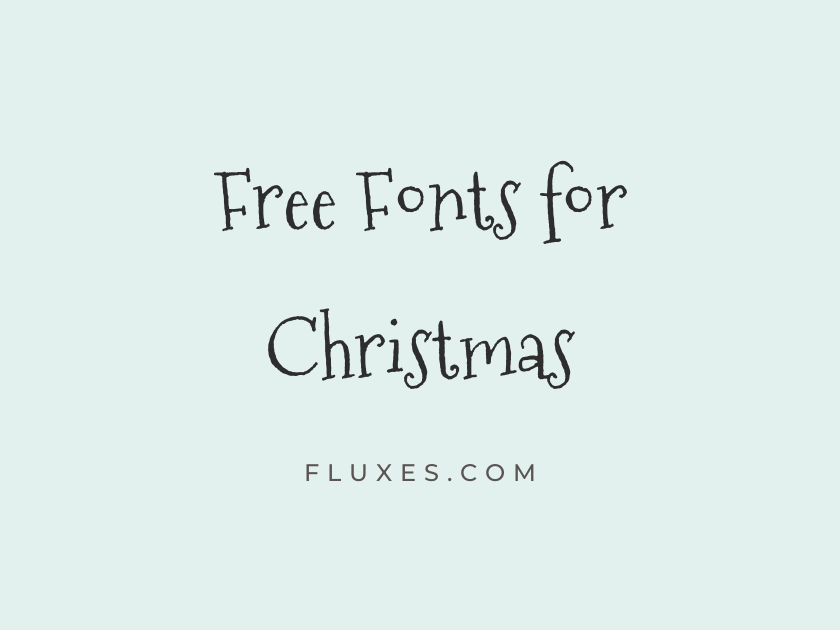
65 Best Free Fonts for Christmas
Christmas design work leans on lettering as much as it leans on holly, pine, and string lights. A card, a gift tag, a bakery menu, or a holiday sale banner can shift completely depending on whether the type feels like a hand-lettered greeting, a formal engraved invitation, or a bouncy candy-cane display face. Because every one of these families lives on Google Fonts, they are free to license for personal and commercial holiday projects, easy to pair with a webfont embed, and simple to swap into a template without worrying about a paid license.
What follows covers the full range a season of design work actually needs: flowing scripts for cards and envelopes, chunky rounded faces for kids’ crafts and cookie packaging, elegant serifs for formal party invitations, and a few gothic and blackletter faces for that old-world “Noel” feeling.
Mountains of Christmas
Built specifically with December in mind, this face has a hand-carved, slightly wobbly rhythm that recalls painted wooden signs and vintage postcards. The bold weight is sturdy enough for headlines and packaging, while the display still reads as friendly rather than corporate. It is one of the few genuinely Christmas-named fonts on Google Fonts, and it earns the name.
An elegant, single-stroke script with long, confident swashes that suit formal party invitations and monogrammed gift tags alike. It pairs beautifully with a restrained serif for body copy, since its own flourishes need breathing room to shine.
A brush script with a looser, more casual hand than Great Vibes, good for a card that wants warmth without formality. Keep it at larger sizes; the thin connecting strokes thin out and lose crispness in small print.
Slim, upright, and understated for a script, Sacramento reads more like fine handwriting than calligraphy. It works well as an accent word tucked beside a bolder headline rather than as the star of the composition.
Rounded and a touch romantic, this script feels at home on wedding-adjacent holiday events, think a Christmas Eve engagement announcement or a New Year’s toast invite.
A delicate, tightly-spaced script with old-fashioned charm; it suits letterpress-style stationery and foil-effect designs where every line stays thin and precise.
Bouncy and retro, with a marker-like weight that gives it more presence at small sizes than most scripts manage. It has a playful, mid-century advertising feel that suits a cheerful holiday sale banner.
The name alone makes it an easy pick for bakery and cookie packaging, and the casual, slightly heavy script backs that up with a friendly, unfussy character.
A softer, rounder script than most on this list, closer to a fountain-pen signature than a formal invitation hand. It reads well in longer phrases, which makes it useful for short holiday messages rather than single words.
This one genuinely looks handwritten with a felt-tip pen, uneven and personal in a way that suits recipe cards, gift labels, and anything meant to feel homemade.
A clean, modern handwriting style that stays legible even at small sizes, which is rarer than it sounds among script fonts. It works nicely for annotations, sticky-note style graphics, and casual holiday to-do lists.
Thin and airy, like a note scribbled on the back of a card. Use it sparingly; its lightness can wash out against busy holiday backgrounds.
A single-weight script with a relaxed, slightly retro loop to it, pleasant for casual event signage like a neighborhood tree-lighting flyer.
One of the most recognizable free scripts around, with fat, glossy curves that read as friendly rather than elegant. It has been used everywhere from coffee shop menus to holiday markets, so it pairs well with a rustic, market-stall aesthetic.
A softer, rounder cousin to Lobster with less swagger and more warmth, suited to farmhouse-style holiday branding.
Narrow and old-fashioned, this script leans into 1920s hotel signage nostalgia, a good match for a vintage-themed holiday party invite.
Bright, bouncy, and endlessly versatile, this is one of the most widely used free scripts for a reason: it stays readable across sizes and pairs easily with almost any sans serif for body text.
A relaxed marker script, less formal than Dancing Script, that suits casual holiday blog headers and social graphics.
For web use, load only the weights actually used on the page. A holiday landing page rarely needs more than two weights per family to look polished and load quickly.